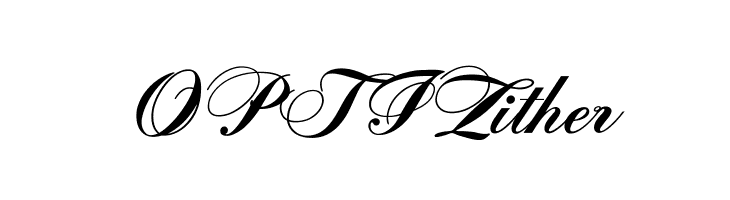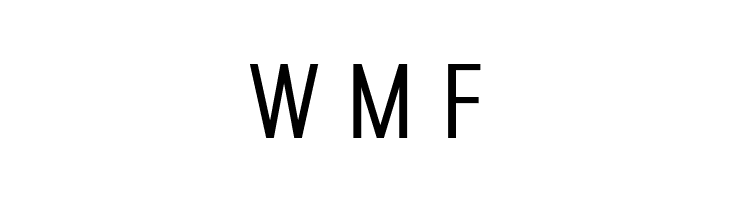
An elegant script font with flowing, ornate cursive letters and intricate flourishes.
A tall, narrow, and modern font with clean lines and minimal curves.
A bold, 3D block font with a geometric and angular design.
An ornate and decorative font with intricate swirls and flourishes.
A bold, handwritten font with a playful and energetic style.
A whimsical font with crowned frog illustrations integrated into outlined letters.
A futuristic, angular font with a bold, leftward slant.
A bold, italic font with a dynamic, vintage sports-inspired style.
A playful, hand-drawn font with a whimsical and friendly style.